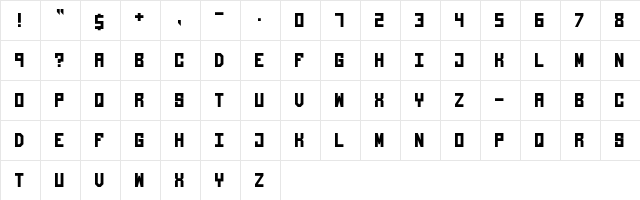
GIANTYPO Font Preview
GIANTYPO GIANTYPO
GIANTYPO Font Details
| Style | GIANTYPO |
| Foundry | Derail |
| Designer | Simon Thomaschke |
Design Context for GIANTYPO Typeface
GIANTYPO takes a measured approach to typography — its balanced proportions and neutral character make it a reliable workhorse for both digital and print work.